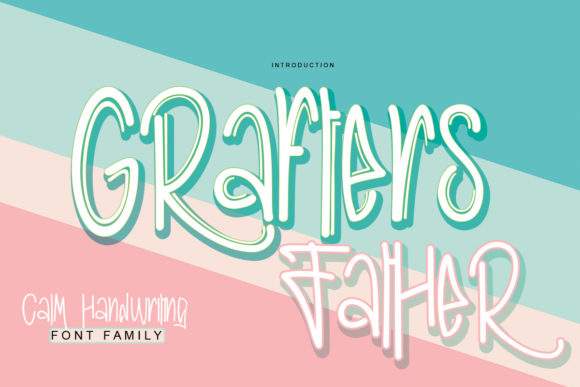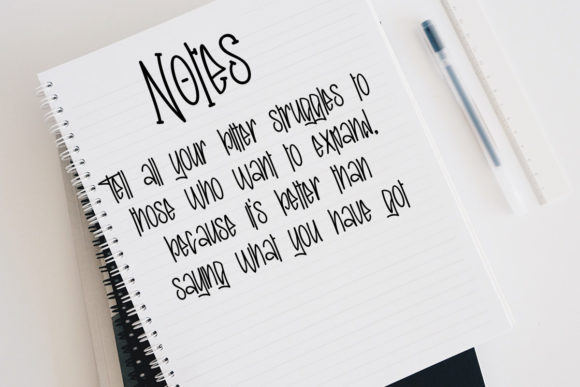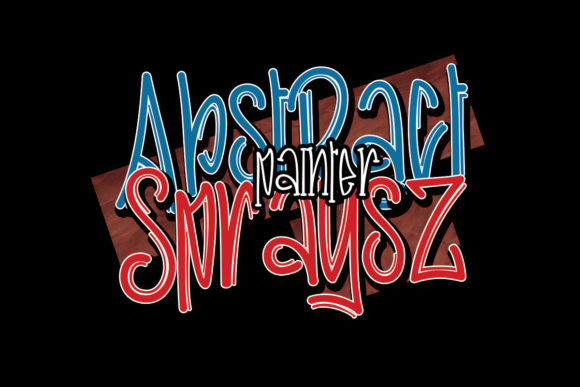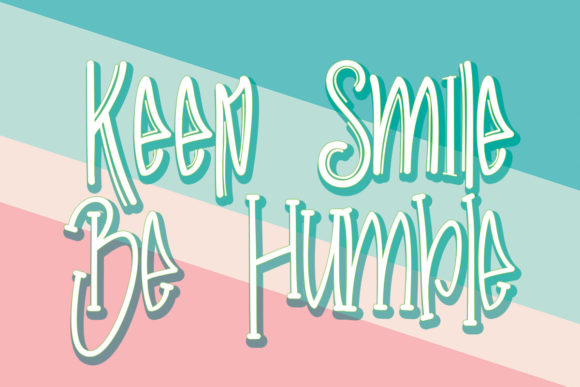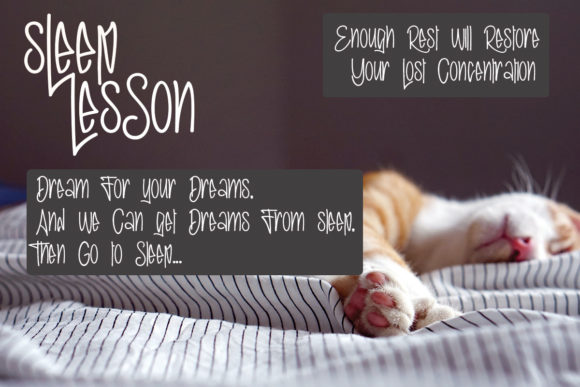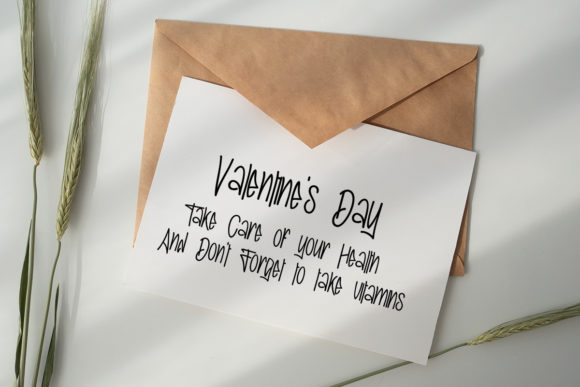
Introduction to Grafters Father Font Font
Fonts play a crucial role in design, and the Grafters Father Font font is a typeface that brings both character and versatility to any project. Whether you’re working on a branding project, a website, or a print design, the Grafters Father Font font offers a unique style that can elevate your work.
Grafters Father is a cool, unique and stylish handmade font.
With its natural look, this font is suitable for all kinds of designs, urban, casual or those that require a trendy touch .
Key Features of Grafters Father Font Font
Why Choose Grafters Father Font Font?
The Grafters Father Font font is more than just a typeface – it’s a design tool that helps you communicate your message with style and clarity. Its unique character set and versatile design make it suitable for a wide range of applications, from elegant invitations to bold headlines.
With its carefully crafted letterforms and balanced proportions, the Grafters Father Font font ensures readability and visual appeal across all mediums.
What makes Grafters Father Font font special?
The Grafters Father Font font stands out with its unique design, exceptional readability, and versatility across various design applications.